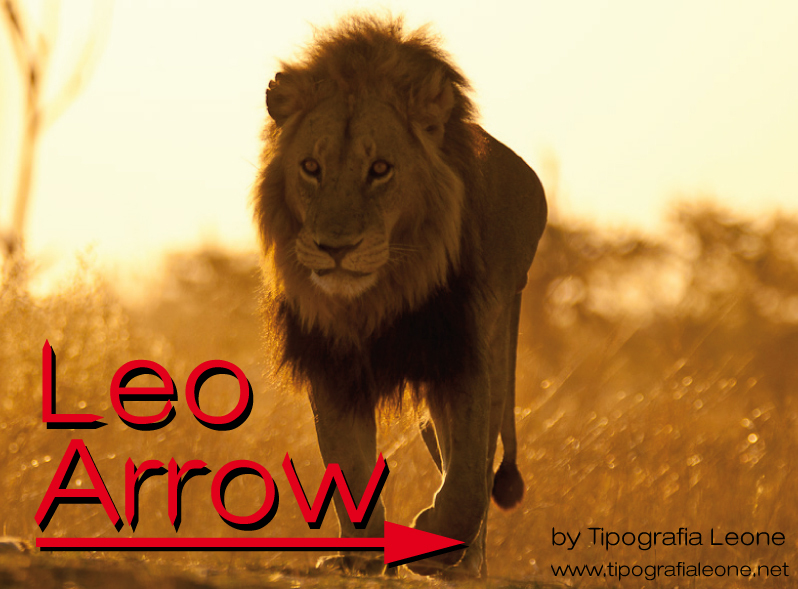
Leo Arrow Sans Serif is a free modern display font. Its tall, spare letters combine clean geometric shapes with pointed arrowhead tips that repeatedly sharpen the tops of vertical strokes. Changing stroke widths and unusually open forms give the alphabet an elegant but slightly eccentric silhouette.
Fashion branding and electronic-music posters can both use this mix of runway poise and directional, almost diagrammatic detail. The arrow motif also suits gallery identities, festival graphics, and editorial covers, where the letters can become part of a visual system of signs and paths.
The font was created by Tipografia Leone.